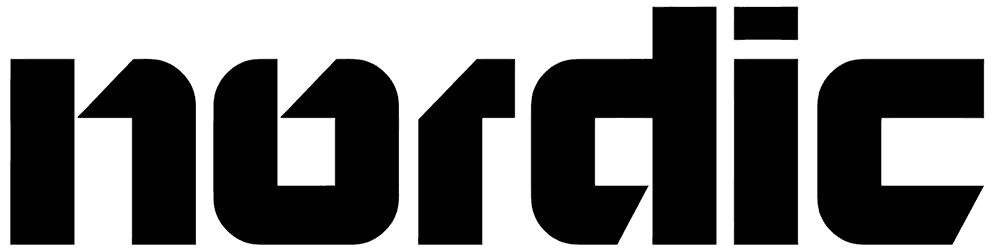
Nordic Font
Nordic is a futuristic font that provides an aesthetic without losing its solidity, thus it can instill a vibe of modernity, seriousness, vivacity, or approachability in the viewer’s minds. Despite the undeniable fact that uppercase letters are not supported by this font, it still perfectly fits a wide set of graphic content like comic book covers, magazines, headlines, applications, or editorial projects.